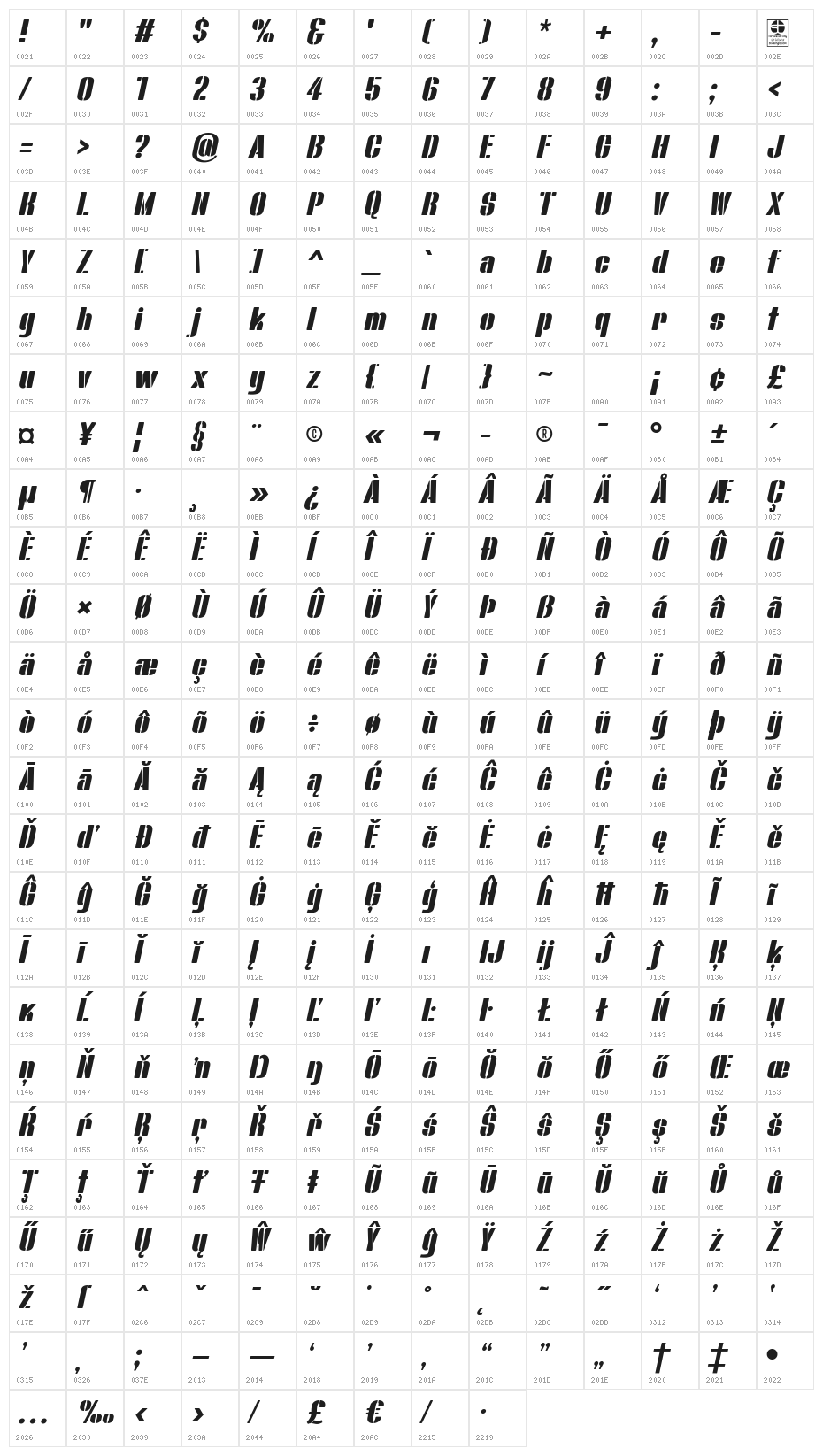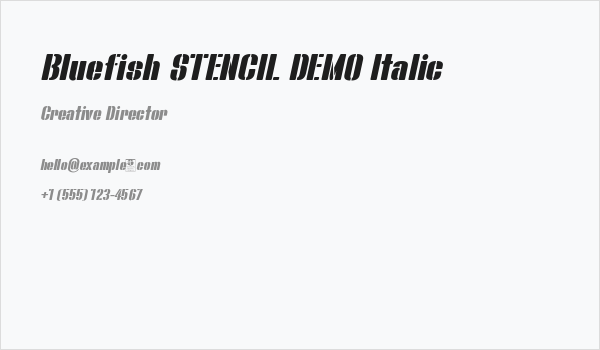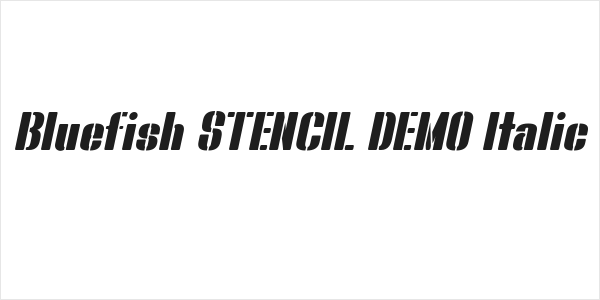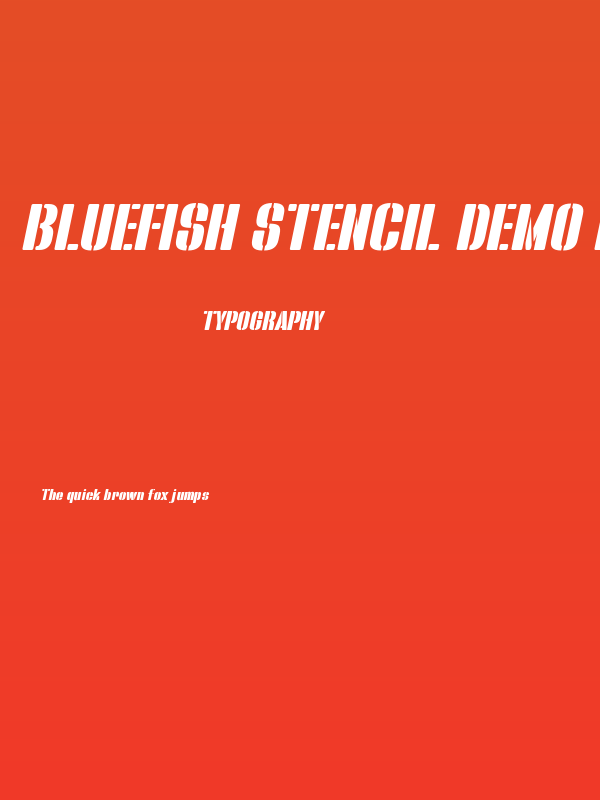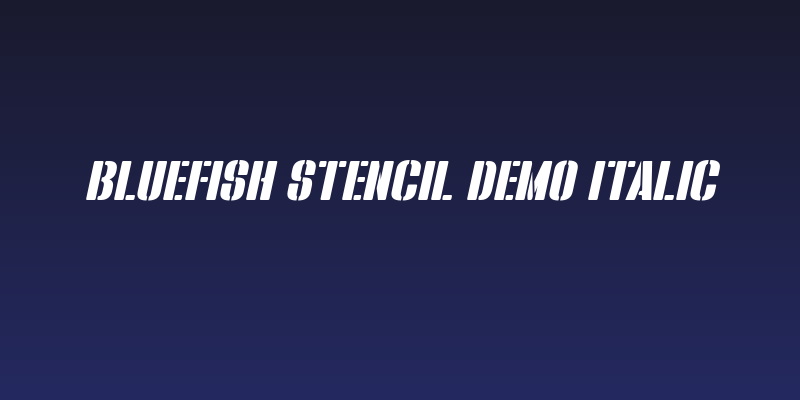
Bluefish STENCIL DEMO Italic Font
Bluefish STENCIL DEMO Italic Description
This font features a bold, stencil-like design with a modern twist. The characters are sharply cut with distinct gaps, giving it a rugged and industrial feel. The italic style adds a dynamic and forward-leaning appearance, enhancing its contemporary look. The uppercase and lowercase letters maintain a consistent design, while the numbers and special characters complement the overall aesthetic. The font's boldness and unique style make it stand out, suitable for attention-grabbing designs.